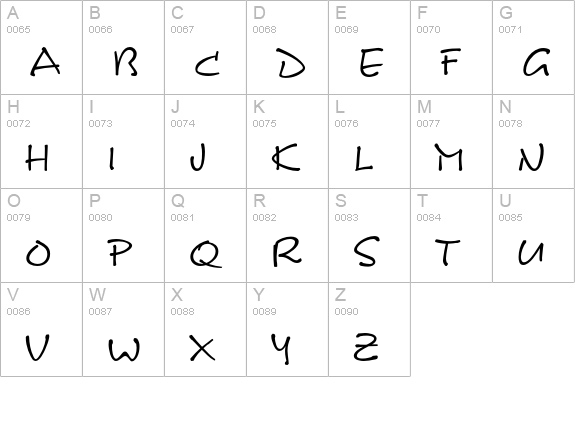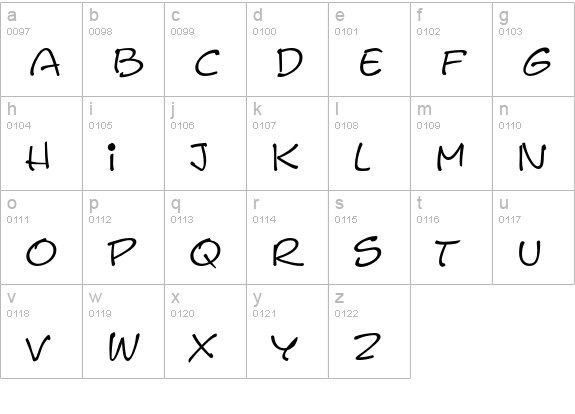
LeAsterixEF-Regular Font Details
LeAsterixEF-Regular is the standard, neutral variant in the LeAsterixEF typeface family \xE2\x80\x94 well suited to general body text, paragraphs, and standard typographic work.
LeAsterixEF-Regular is a beautifully crafted font that exudes elegance and sophistication. Its clean lines and smooth curves make it a perfect choice for a wide range of design projects. Whether you're creating a captivating logo, designing a professional-looking business card, or crafting an eye-catching poster, LeAsterixEF-Regular is sure to leave a lasting impression. This font strikes the perfect balance between traditional and modern, making it versatile and suitable for both formal and casual designs. Its timeless appeal ensures that it will never go out of style, making it a valuable asset for any designer. One of the best features of LeAsterixEF-Regular is that it is free to download at FontsMarket.com. This means that you can easily access and use this stunning font without any restrictions. Whether you're a professional designer or a passionate hobbyist, this free font allows you to bring your creative vision to life without breaking the bank. With LeAsterixEF-Regular, you have the freedom to explore your creativity and experiment with different design elements. Its wide range of characters and glyphs gives you the flexibility to create unique and personalized designs that truly reflect your style and personality. So why wait? Download LeAsterixEF-Regular today and unlock a world of design possibilities. With its timeless elegance and the freedom it offers, this font is a must-have for any designer's toolkit.